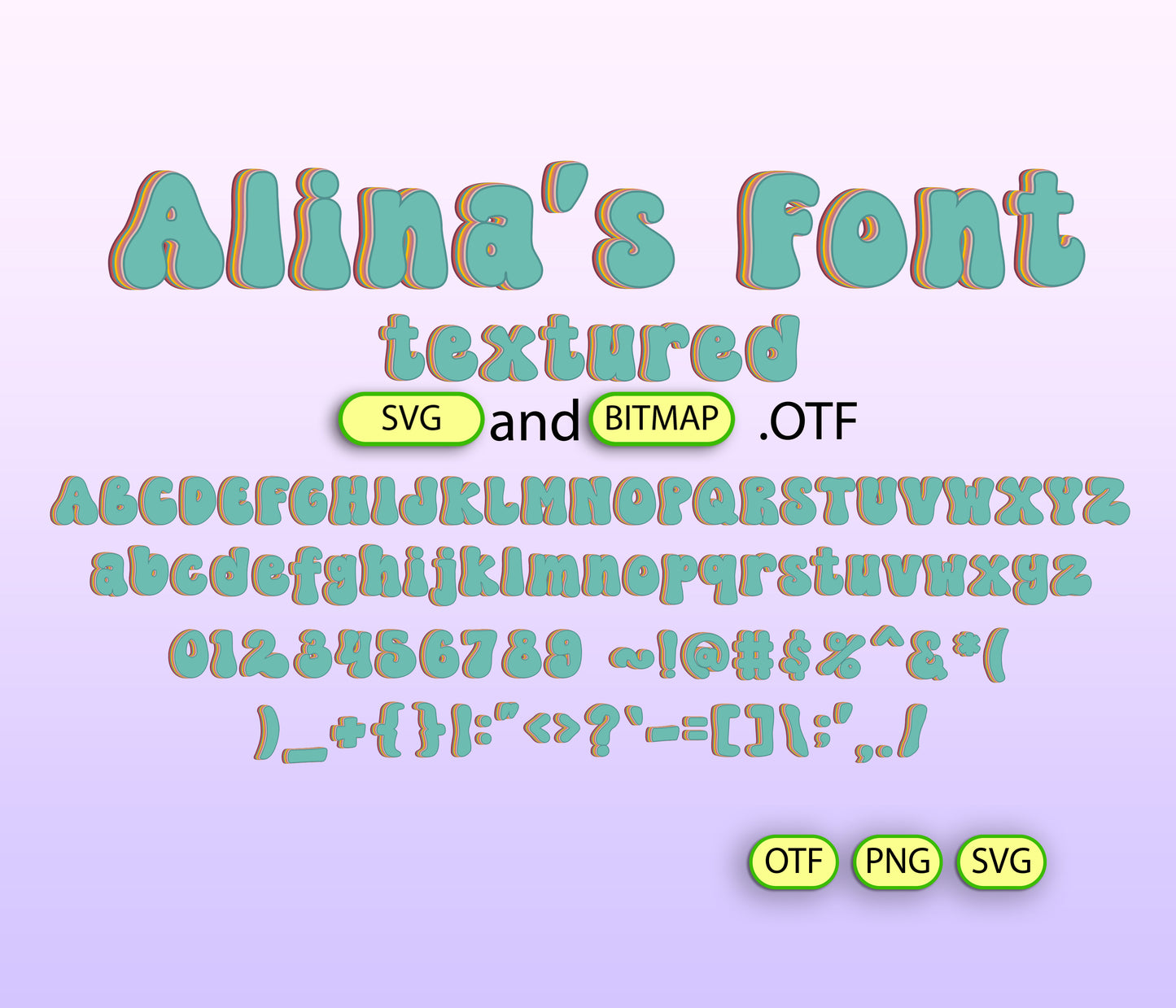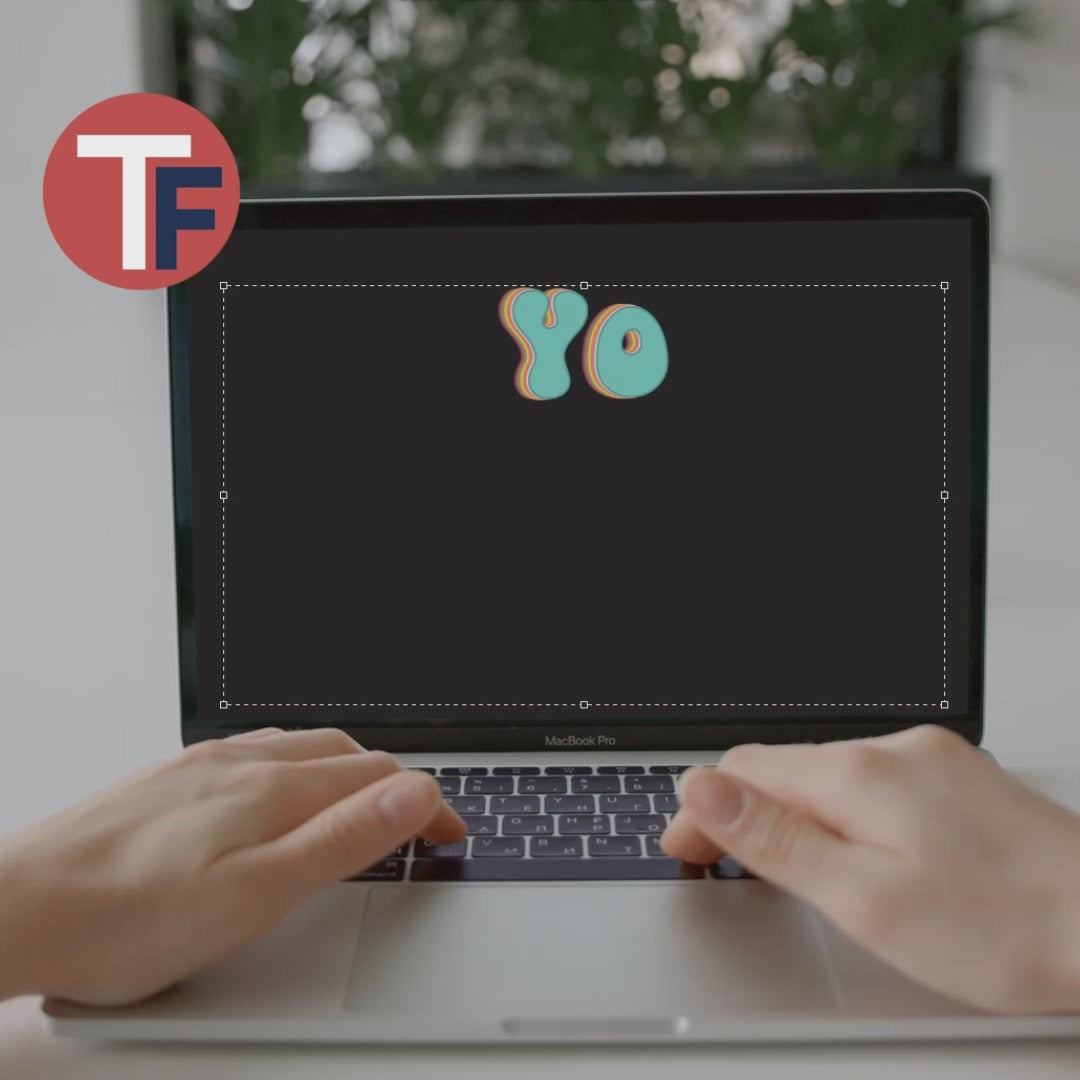
Groovy Retro Green Font Textured
The Swinging Style of Groovy
Get ready to dive into the retro vibes of the 60s and 70s with our Groovy font, a dynamic tribute to the era of peace, love, and music. This font encapsulates the essence of the groovy movement, renowned for its bold and fluid typography that defined the psychedelic and disco scenes. Each character in the Groovy font is a nod to the era's distinctive style, from the flowing curves reminiscent of lava lamps to the bold shapes echoing vintage concert posters. It's perfect for projects aiming to channel the spirit of this iconic and vibrant period in history.
What Font is Groovy Font?
Think of a typeface that captures the exuberant and expressive style of the 60s and 70s. Our Groovy font is designed to reflect the era's flair for flamboyant and fluid letterforms, embodying a sense of freedom and creativity. The font includes an extensive character set, featuring alphabets, numbers, and special symbols, making it an ideal choice for a wide range of design projects, from retro-themed events to music and art festival branding.
What Can You Do With Groovy Font?
The Groovy font is versatile and ideal for various creative applications:
- Retro-Themed Party Invitations: Create eye-catching invitations for 60s and 70s themed parties or events.
- Music Festival Branding: Perfect for designing logos, banners, and merchandise for music festivals with a retro theme.
- Vintage Apparel and Merchandise: Design t-shirts, posters, and other items that resonate with fans of the era.
- Social Media and Digital Content: Use the font to add a vintage touch to websites, blogs, and social media posts.
- Graphic Design Projects: Incorporate the font into album covers, concert posters, and art projects that require a retro feel.
- Interior Decor: Create wall art, signage, or decorations for spaces inspired by the 60s and 70s.
- Advertising and Marketing Materials: Use in marketing campaigns or advertisements that aim to evoke nostalgia.
- Editorial Design: Ideal for magazines, brochures, or publications focusing on retro culture or music.
- Event Signage and Decorations: Develop vibrant signs and décor for themed events or exhibitions.
- Creative Art and DIY Projects: Use for scrapbooking, crafting, and artistic projects inspired by the groovy era.
- Textured and FREE Non-Textured Variants: Choose between a version that embodies the textured, psychedelic vibe or a clean, non-textured version for a more versatile use.
- Comprehensive Character Set: Offers a wide range of characters for complete design versatility.
The Groovy-inspired font is more than just a typeface; it's a portal to the colorful and expressive world of the 60s and 70s.